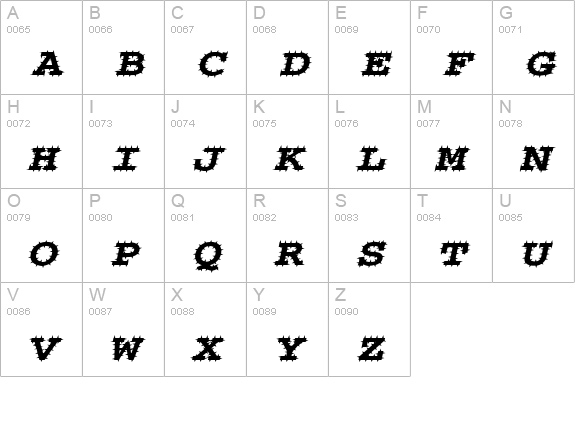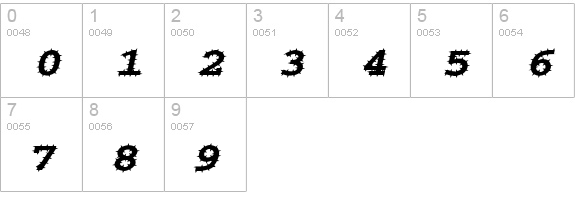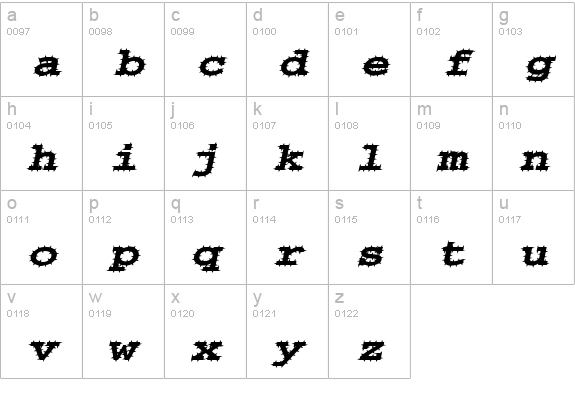
ChiselSpikedExtended Italic is a distinctive, italic variant in the ChiselSpikedExtended typeface family \xE2\x80\x94 well suited to design and typography projects.
ChiselSpikedExtended Italic font is a bold and dynamic typeface that exudes a sense of strength and sophistication. Its sharp edges and unique design make it perfect for projects that require a touch of edginess and creativity. The italicized version of this font adds a touch of elegance and flair, making it versatile for a wide range of design projects. What makes ChiselSpikedExtended Italic font even more appealing is that it is available for free download at FontsMarket.com. This means that you can easily access this stylish font without any cost, making it a valuable addition to your font collection. Whether you are working on branding, advertising, or creative projects, ChiselSpikedExtended Italic font is sure to make a bold statement and elevate your designs to the next level. Download it today and let your creativity shine!